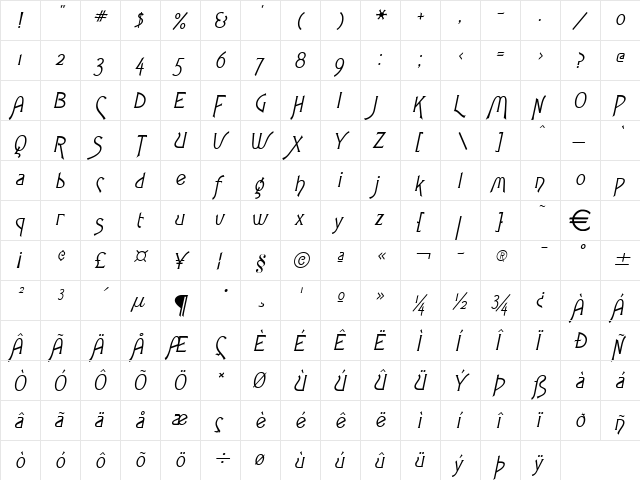
Fletch Italic
Design Context for Fletch Typeface
Fletch takes a measured approach to typography — its balanced proportions and neutral character make it a reliable workhorse for both digital and print work. The dynamic lean of this cut emphasises speed and emphasis in any layout.